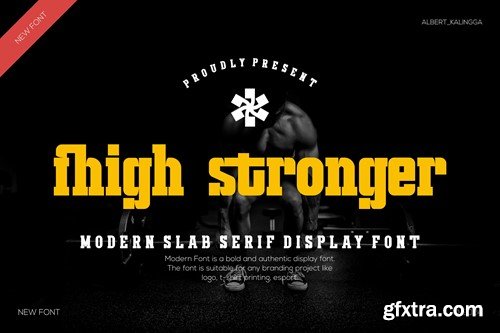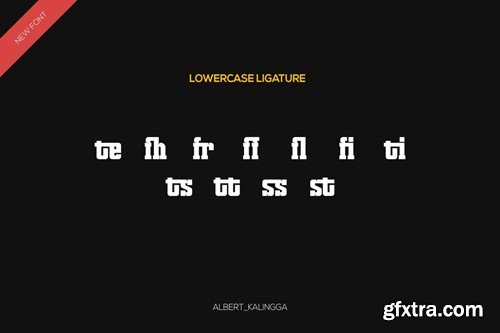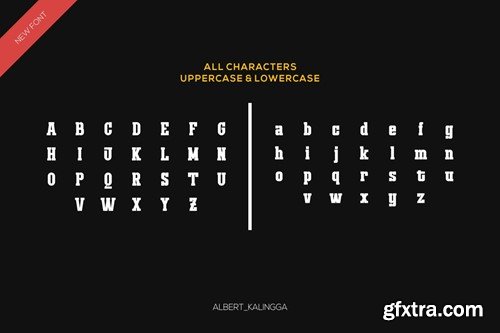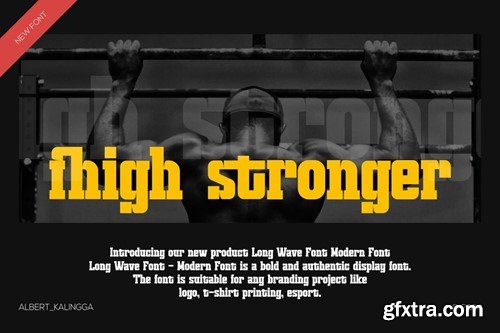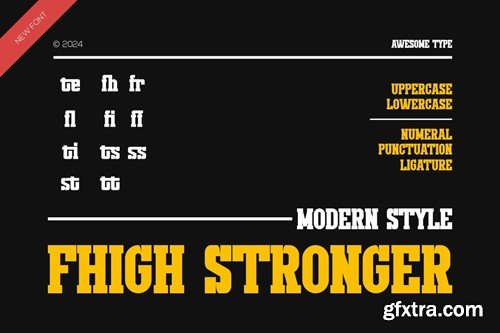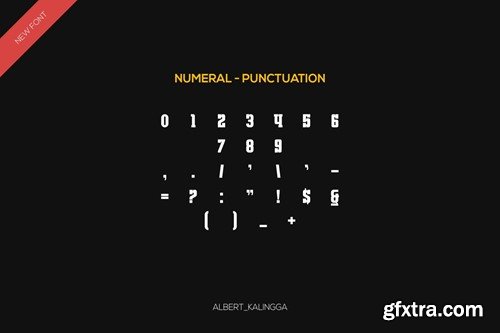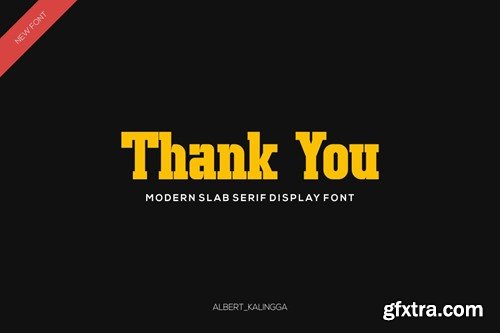
Fhigh Stronger Font
Introducing our new product Fhigh Stronger Font - Modern Font is a bold and authentic display font. The font is suitable for any branding project like logo, esport, and many more. outstanding in a wide range of contexts. availlable